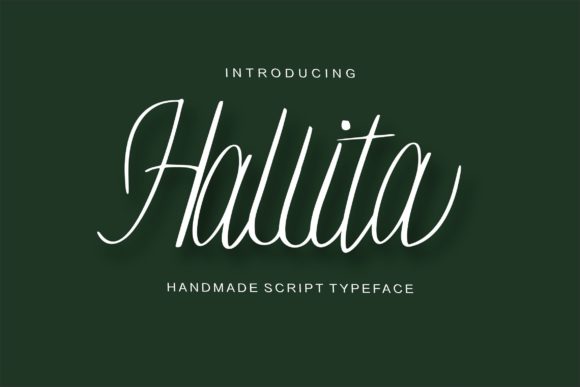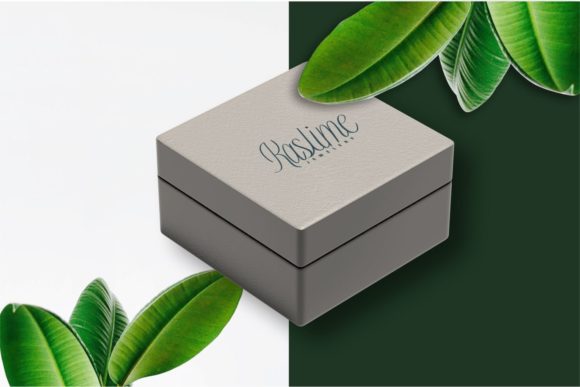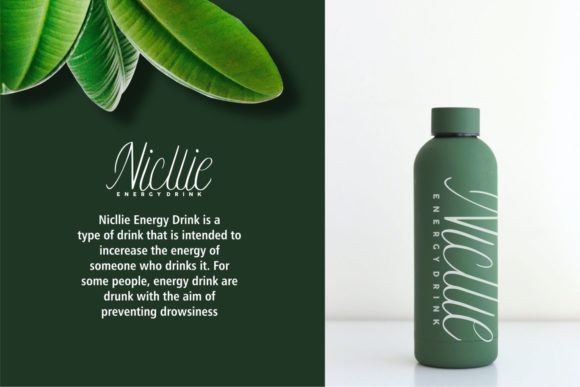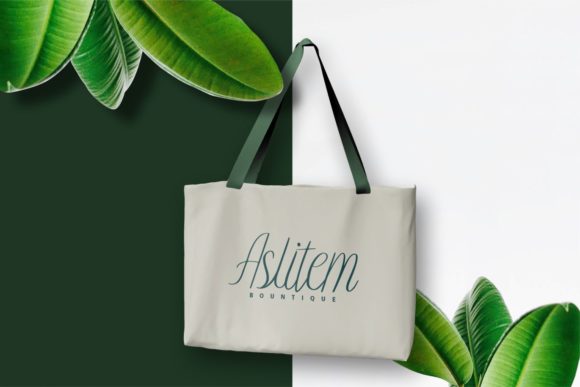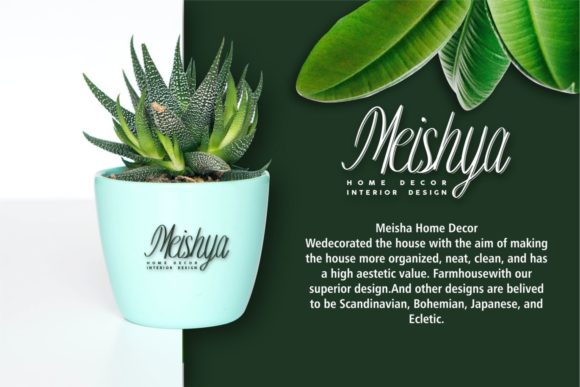
Hallita Script Font
About Hallita Script Font
Hallita Script is a well-balanced and refined script font. It has a classy, elegant and modern look that can be used for logos, branding, invitations, stationery, wedding designs, social media posts, and much more!